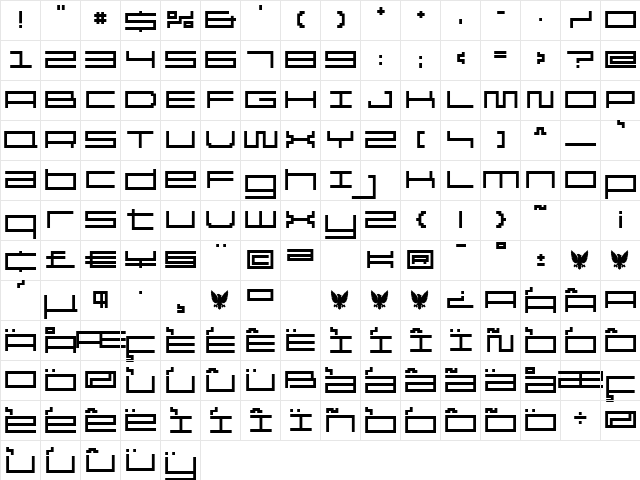
Reversion SemiBold Font Preview
Reversion SemiBold
Reversion SemiBold Font Details
| Style | SemiBold |
| Foundry | YouWorkForThem |
| Designer | Michael Cina |
Design Context for Reversion Typeface
Reversion takes a measured approach to typography — its balanced proportions and neutral character make it a reliable workhorse for both digital and print work. Its bold stroke weight gives it real presence on the page.